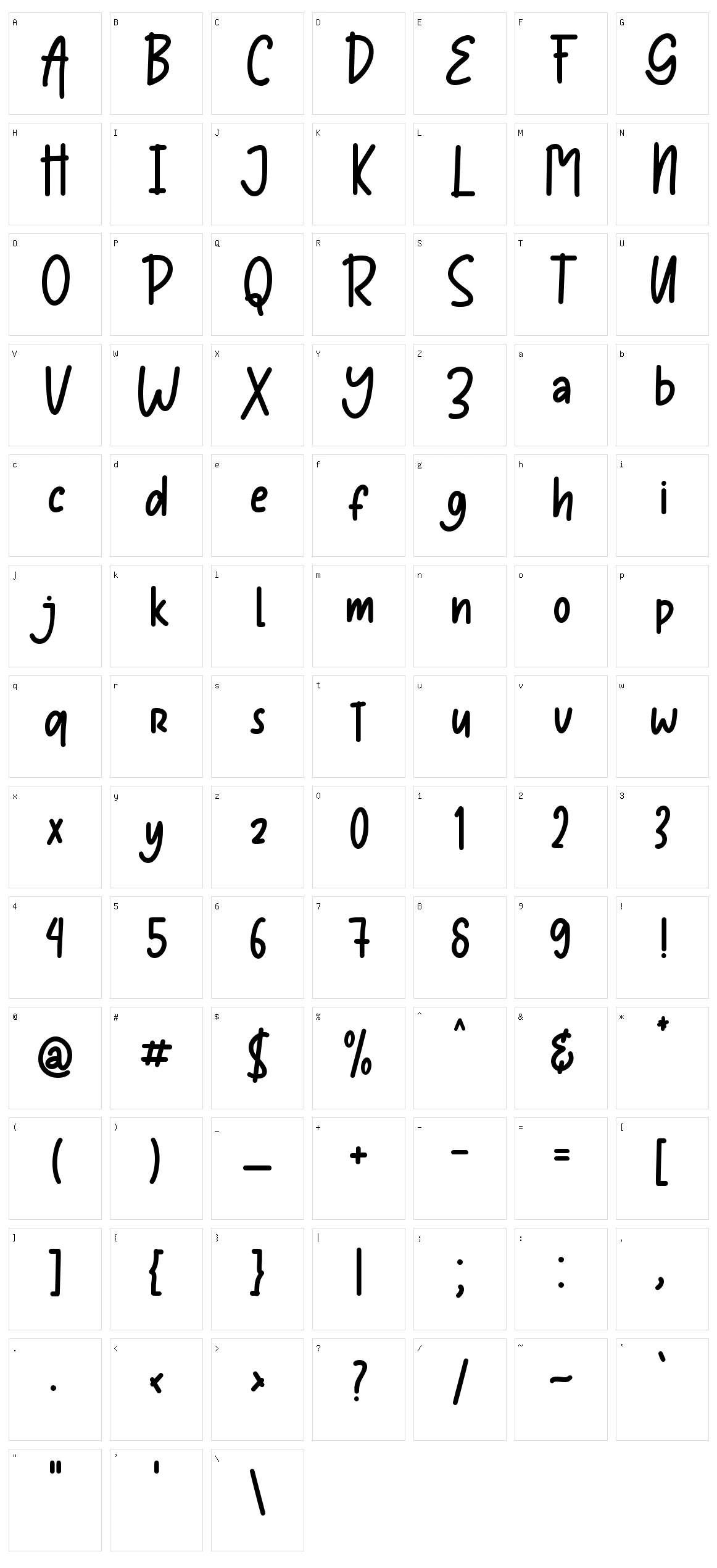
The free font Giant Oranges is carefully designed by Masa Aska Sanurumi, showcasing a thoughtful balance of creativity and usability and falls under the Script font style. When you download the ZIP file, it contains only 27 KB of font files, making it lightweight and quick to download. Please review the license details below to understand permitted usage and distribution rights. If license information is not available, we recommend using this font for personal projects only or contacting the author directly for commercial usage permissions.